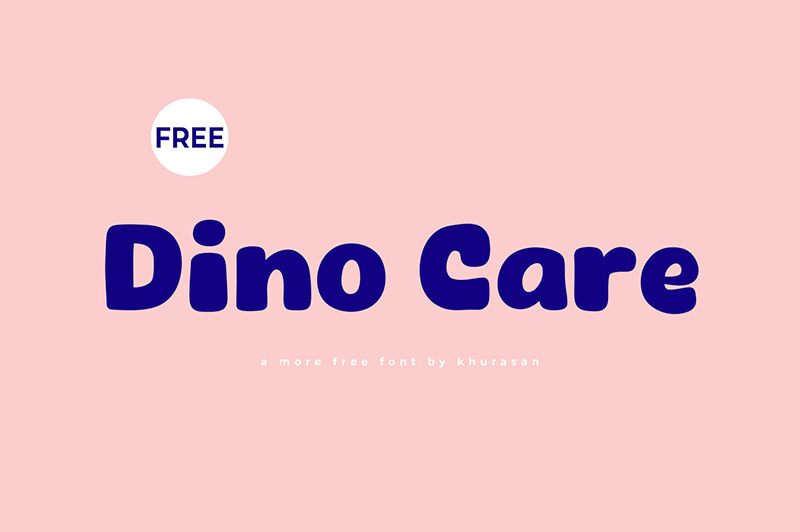
Dino Care
Dino Care, a captivating display font designed by Khurasan, exudes a playful and whimsical charm. With its bold, expanded strokes and cartoon-inspired aesthetic, this font effortlessly captures a sense of adventure and childlike wonder. The organic, hand-drawn feel of the letterforms creates a dynamic and engaging visual experience, inviting the viewer to explore the dynamic interplay of positive and negative spaces.
Dino Care's versatility shines through its ability to add a touch of playfulness and personality to a wide range of design projects. From children's book covers and toy packaging to promotional materials and branding initiatives, this font's distinctive character can breathe life into any design, captivating audiences with its endearing and imaginative appeal.